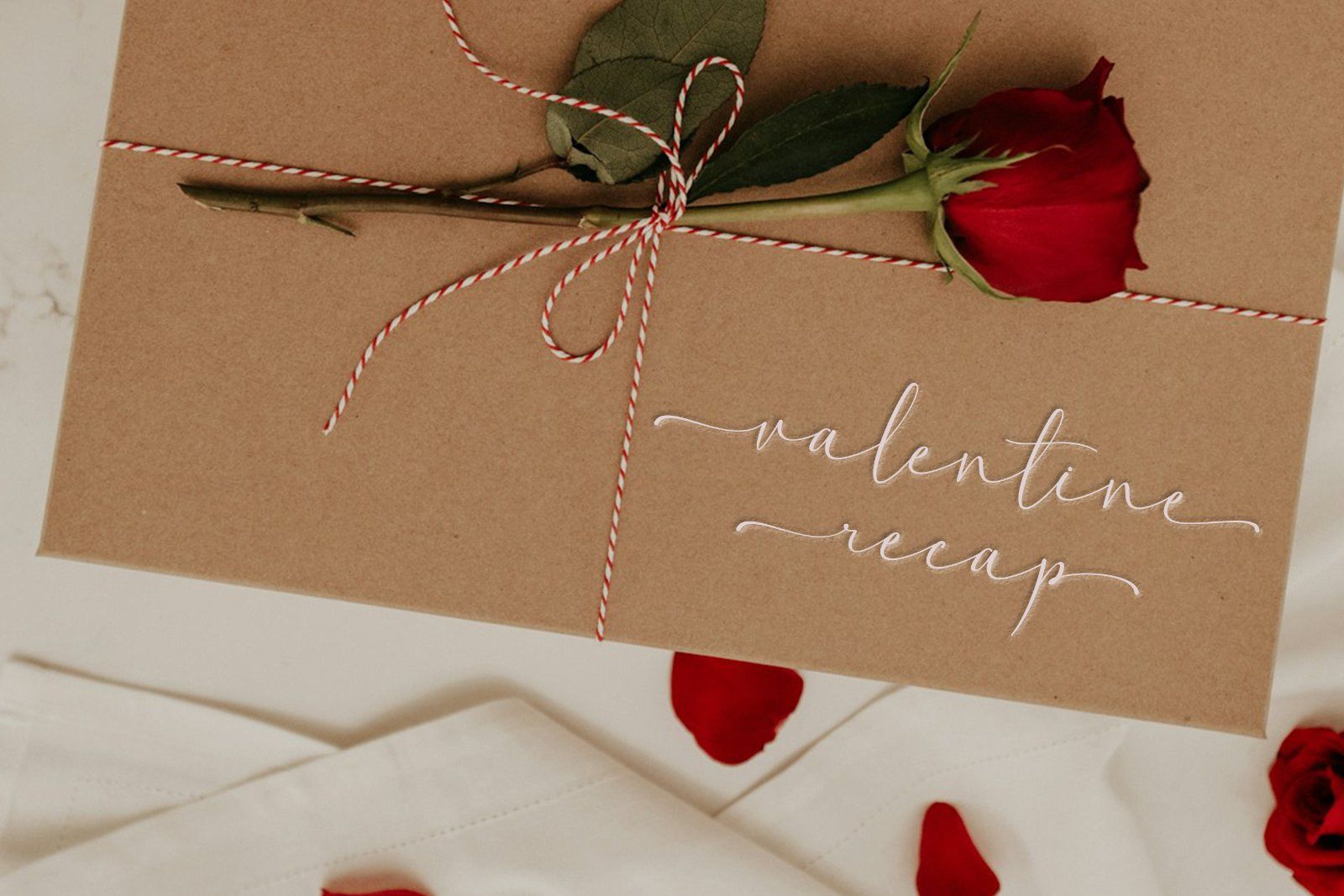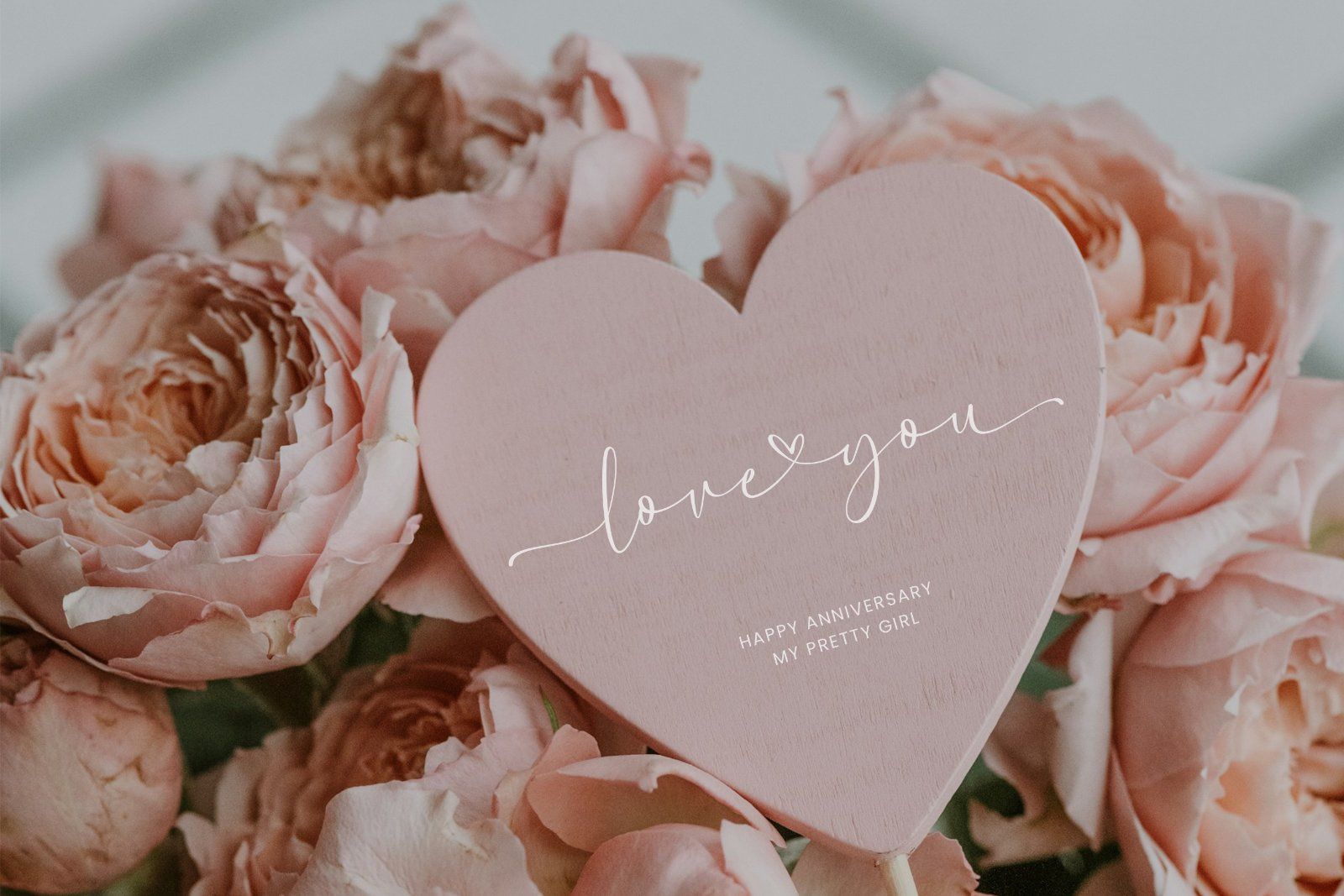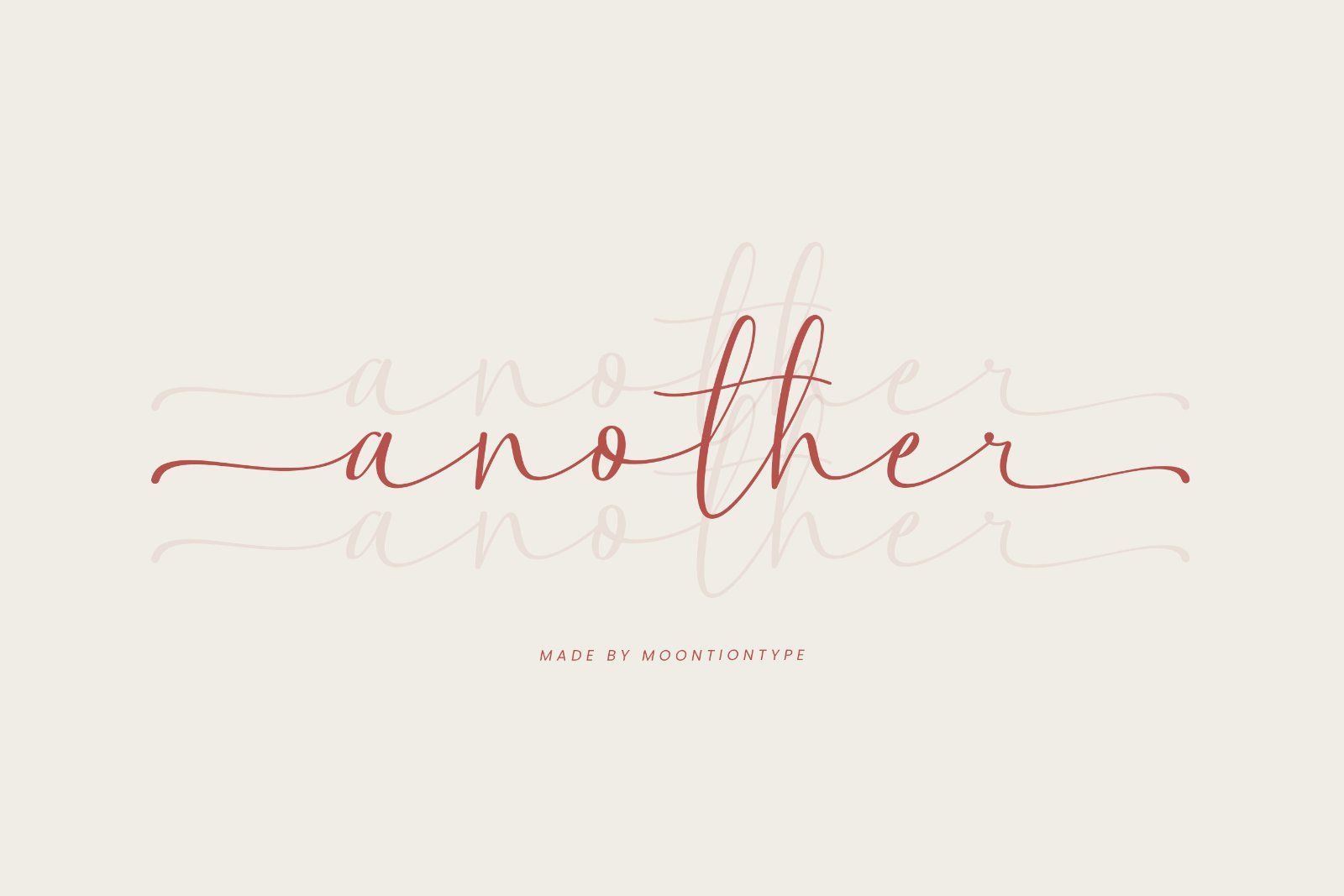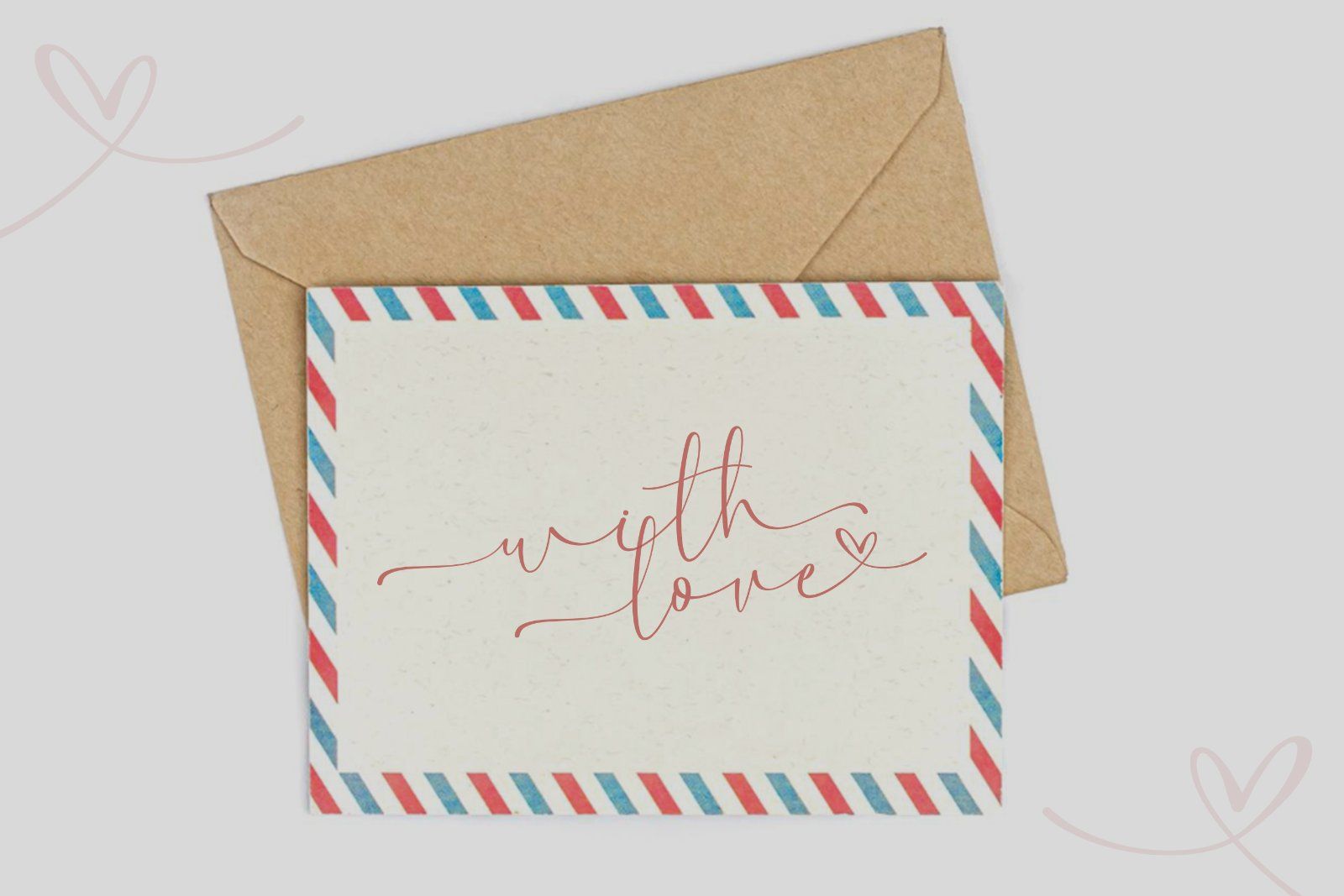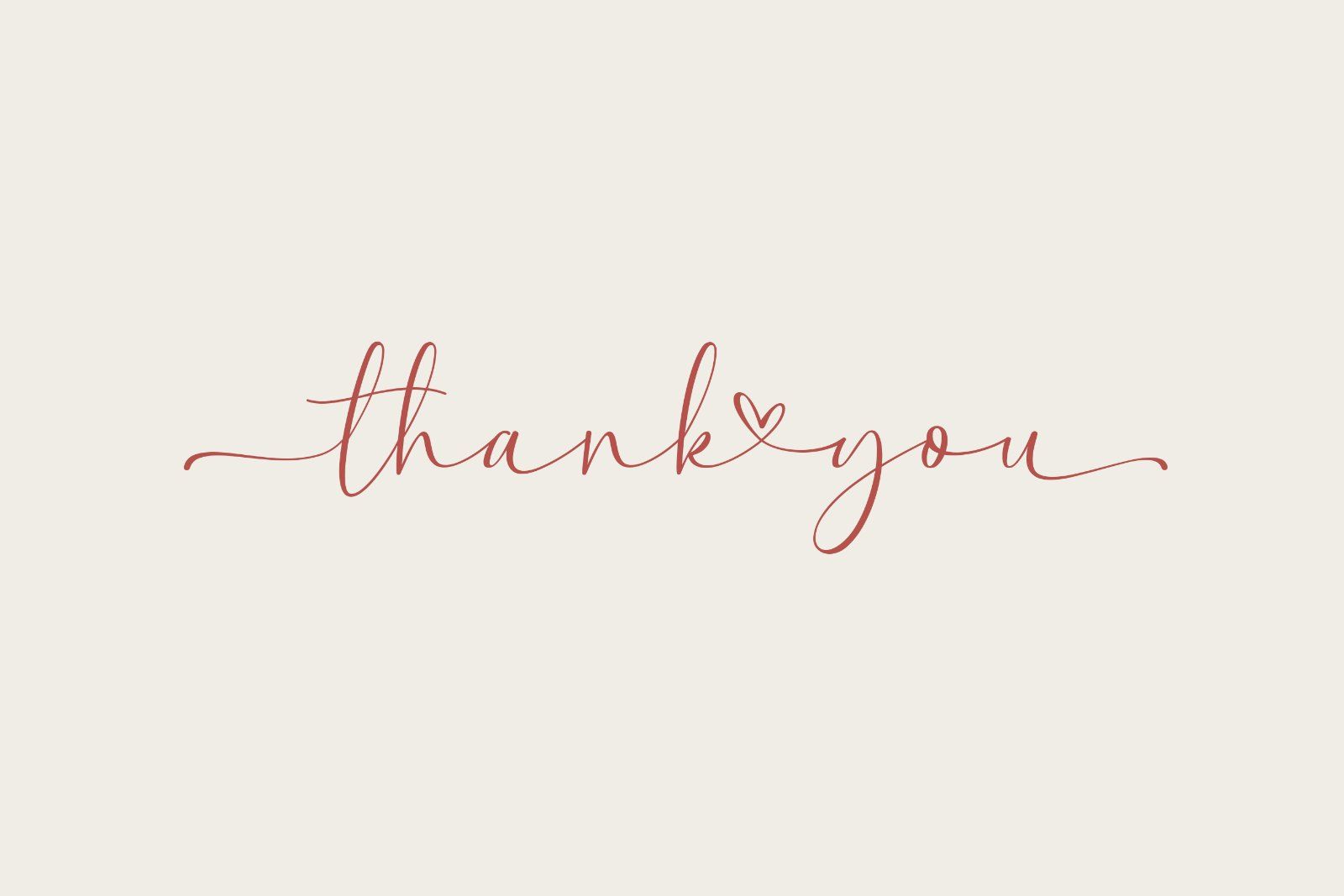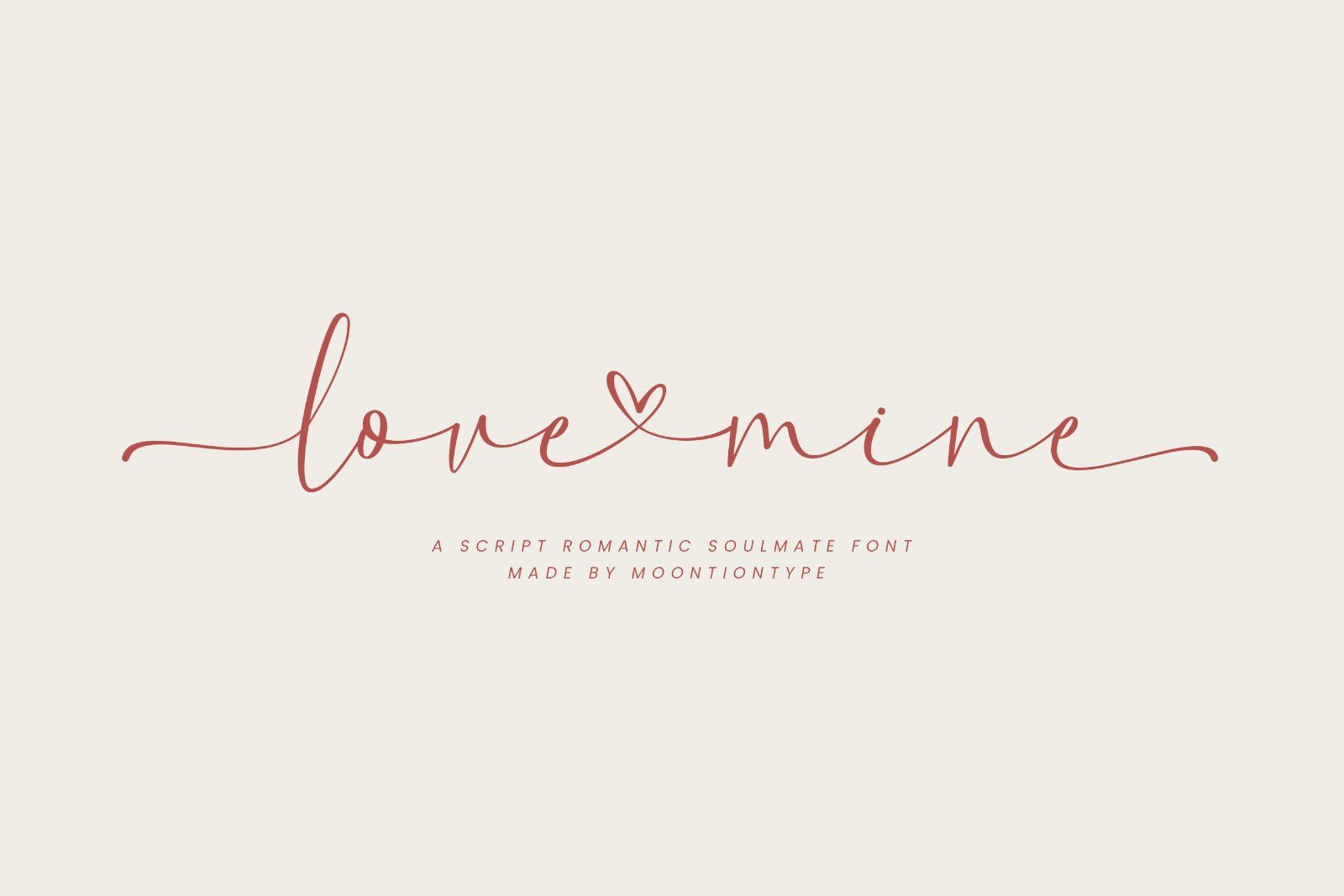
MarketplaceFontsLove Mine | A Script Romantic Font
Love Mine is a romantic handwritten script font designed to capture the beauty of love, elegance, and emotional expression. Featuring smooth flowing strokes and delicate heart-shaped details, this font brings a warm and charming personality to every design.
With its natural handwritten style and graceful curves, Love Mine is perfect for creating romantic and feminine designs. It works beautifully for wedding invitations, branding, logos, quotes, social media posts, greeting cards, packaging, and Valentine-themed projects.
This font delivers a modern yet timeless feel, making your designs look personal, stylish, and full of heart.
Add a touch of romance and personality to your creative projects with Love Mine — a font made to express love in every letter.